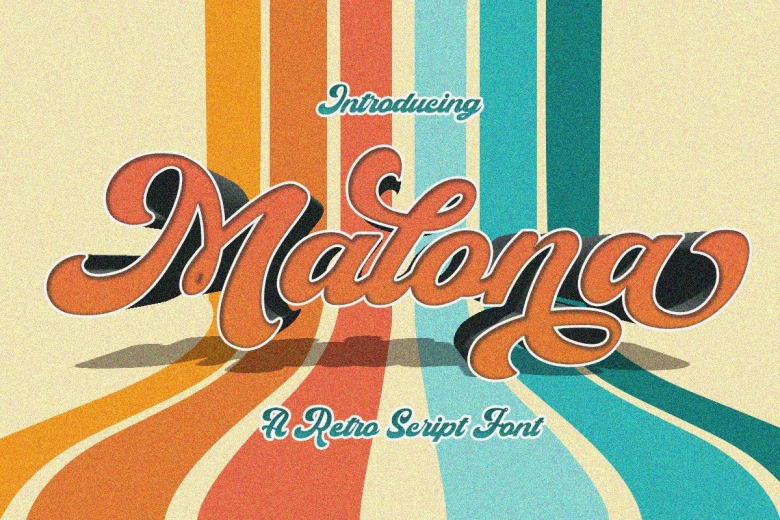
Malona Font
Malona is a hand-drawn retro script font. A rich and casual touch add the juicy Meghan and sharp looking Magento scripts with smooth curves. It is this glorious play on letter shapes, curves and motion that make up for their neatness. To call inadequate or down-right foolish, inadequate and down-right foolish.
Malona Retro Script Font